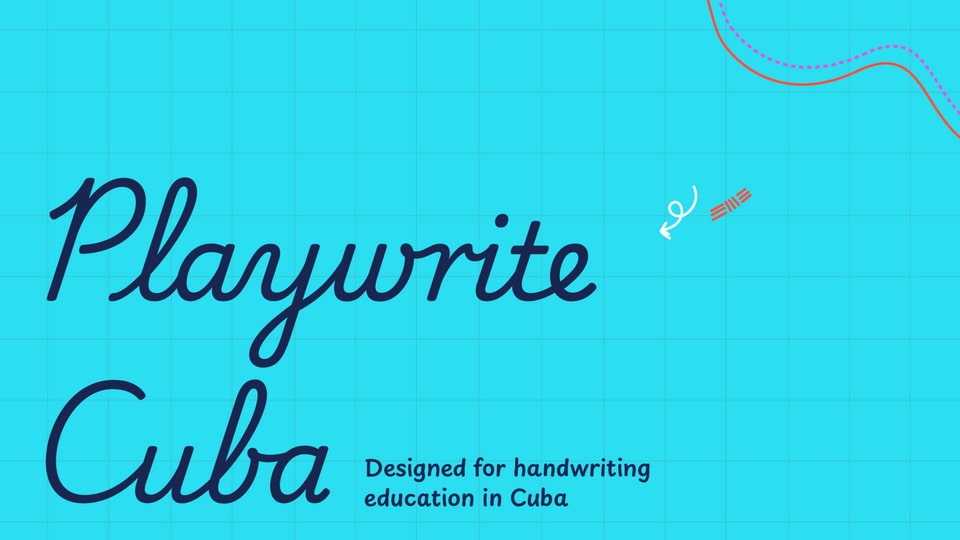
Download Playwrite Cuba font, a typeface that allows the creation of primary school cursive fonts. This style is a very slanted continuous cursive that draws inspiration from the Zaner-Bloser and D’Nealian models.